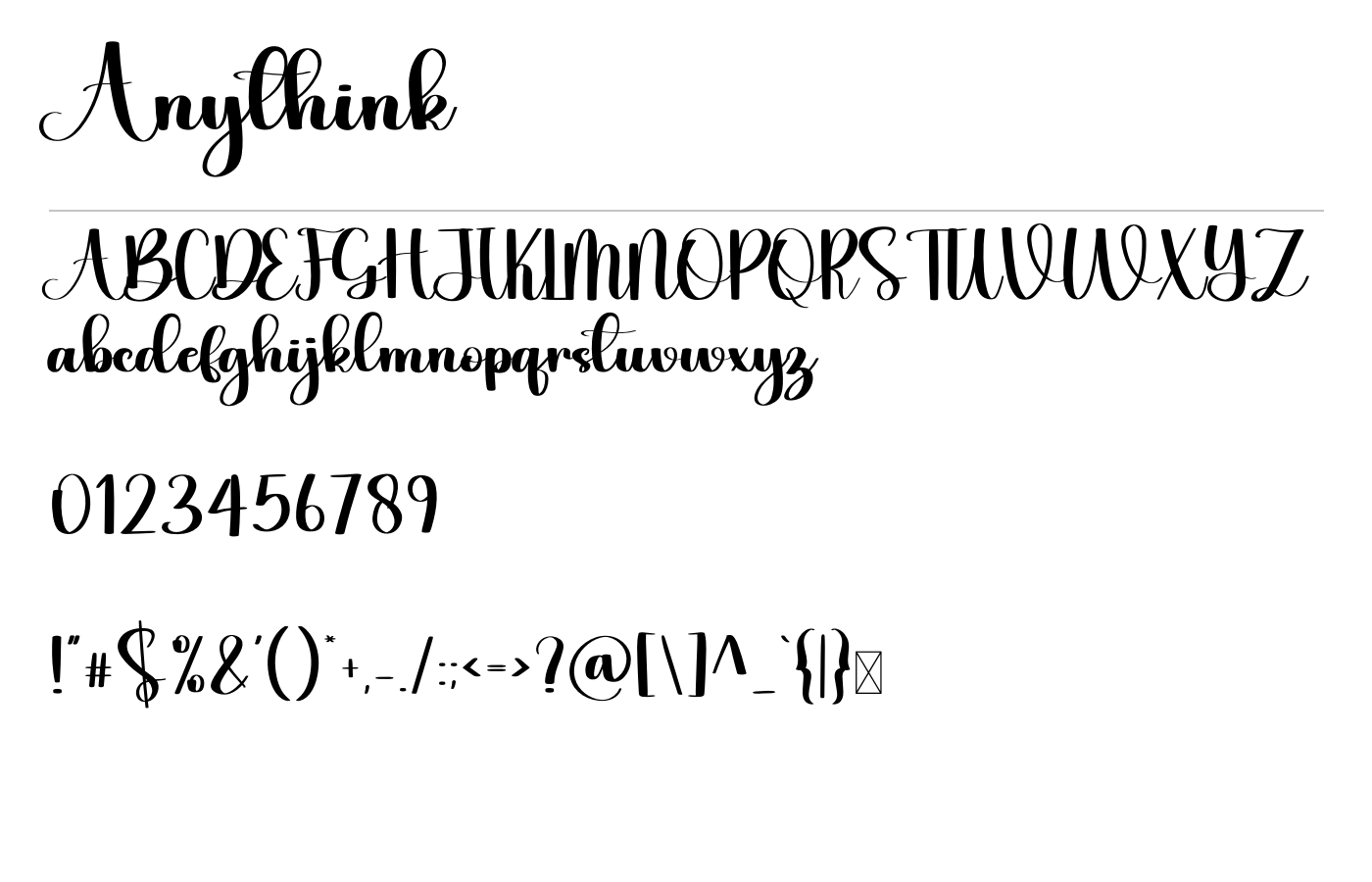
Anythink Font is an elegant, handwritten script with a playful yet sophisticated personality. Its flowing, connected letterforms combine thin, delicate strokes with bold, rounded shapes, making it ideal for invitations, branding, and creative projects that want a personal, artistic touch. This font works beautifully in headlines and decorative texts where a warm, stylish feel is desired.
Anythink Font